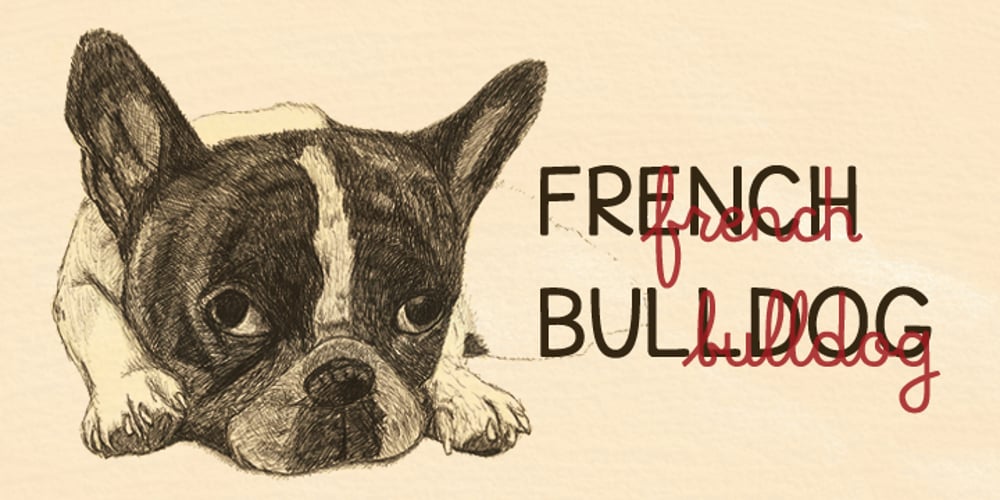
Mr. and Mrs. Peter Font Family was designed by published by Khaito Gengo. Mr. and Mrs. Peter contains 5 styles and family package options. Mr. Peter is a warm and friendly handwritten san-serif font which has two weights, Regular and Bold. He also features multi languages, some alternative letters, and 35 ligatures. He is good for an eye catching title, display as well as small text. Mrs. Peter is a handwritten script font based on Mr Peter. She also provides two weights, Regular and Bold, and features multi languages, automatic ligatures, and beginning and end-changing effect. It will be in good taste if you combine and use Mr. & Mrs. Peter together. Jr Peter consists of around 100 unique icons and ornaments. Also you can simply create multiple faces by using this font. The description of how to make a face is on the promotion poster.